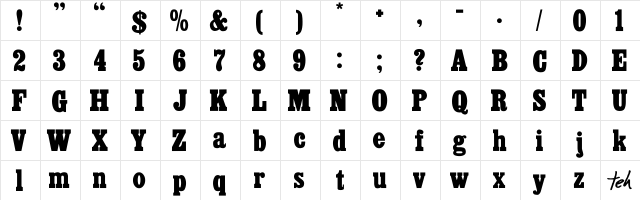
Casil Regular
Design Context for Casil Typeface
Casil takes a measured approach to typography — its balanced proportions and neutral character make it a reliable workhorse for both digital and print work.